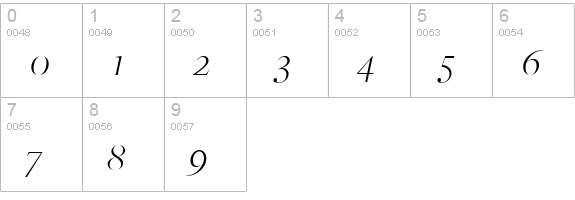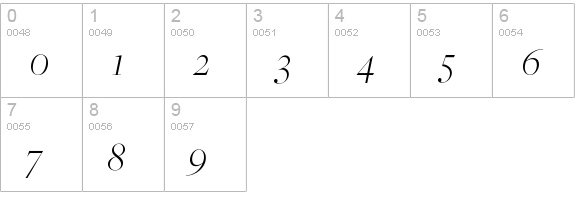
FreightBigLightItalic Font Details
Introducing FreightBigLightItalic font - a sleek and modern typeface that exudes elegance and sophistication. This font is perfect for adding a touch of style to your designs, with its slender and italicized appearance. Whether you're working on a project for print or digital media, FreightBigLightItalic is sure to make a statement. What's even better is that this font is available for free download at FontsMarket.com. You can easily access this versatile and eye-catching typeface to elevate your creative projects without breaking the bank. Don't miss out on the opportunity to enhance your designs with FreightBigLightItalic - download it now and see the difference it can make!